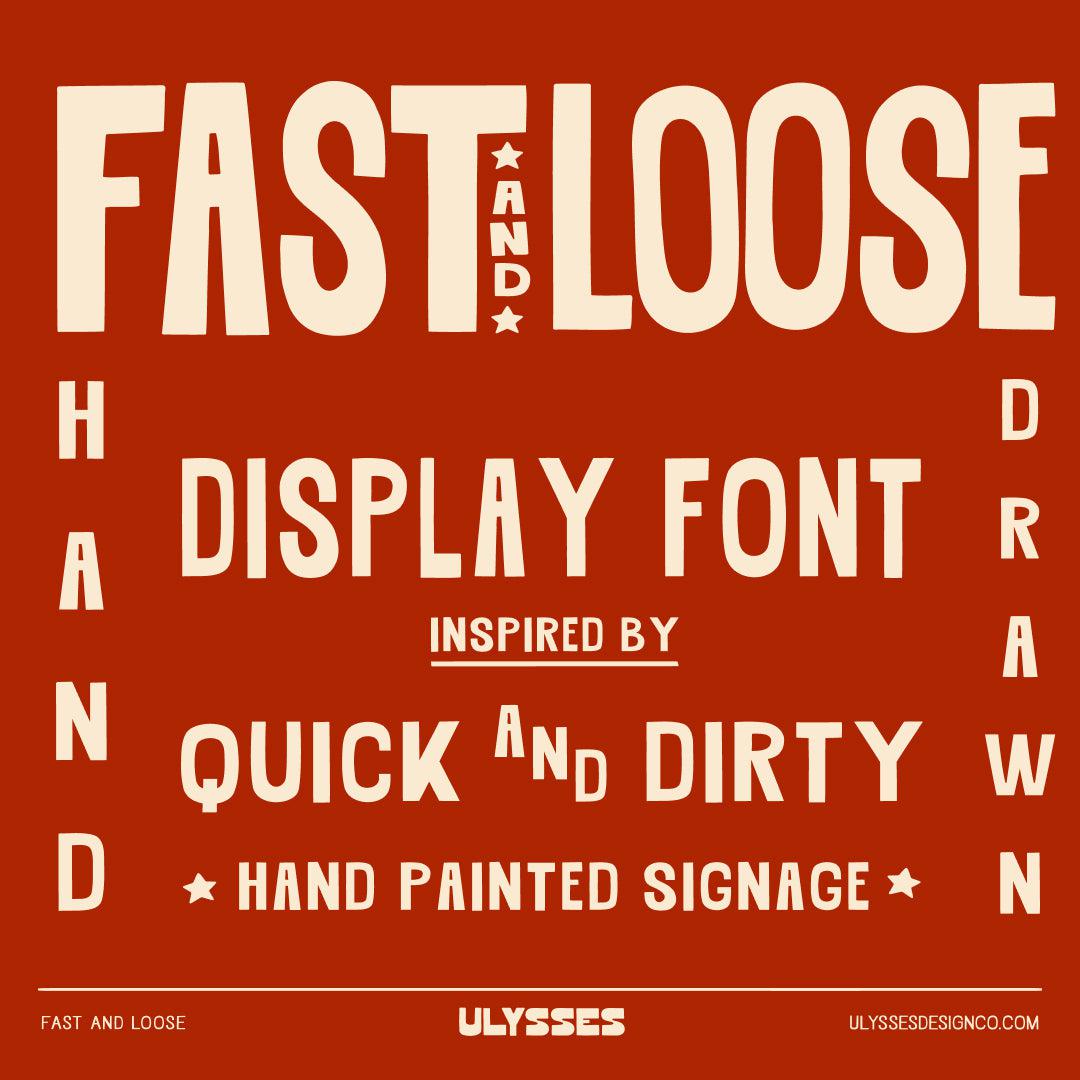
Fast And Loose Hand Drawn Display Font
Ulysses Design Co
Fast And Loose is a hand drawn display font from Ulysses Design Co. It is inspired by quick and dirty hand painted signage. Think a taco menu thrown up on the wall of a Mexican roadside gas station. Or BBQ menu painted on an old plank of wood. The looser the better baby.
Fast And Loose comes in two styles. Tall and Small. Pair them together to create brilliant branding and killer collateral. Use Tall for high and mighty headings. Use Small for subtle sub headings.
Use Fast And Loose on branding, collateral, merch, packaging to create an authentic hand painted feel. Works especially well for great for food and drink branding.
Fast And Loose Hand Drawn Display Font is a custom typeface from Ulysses Design Co. that offers two styles, Tall and Small, for different heading needs. This sans serif font, inspired by hand painted signage, is suitable for branding, collateral, merch, and packaging to provide an authentic hand painted feel.